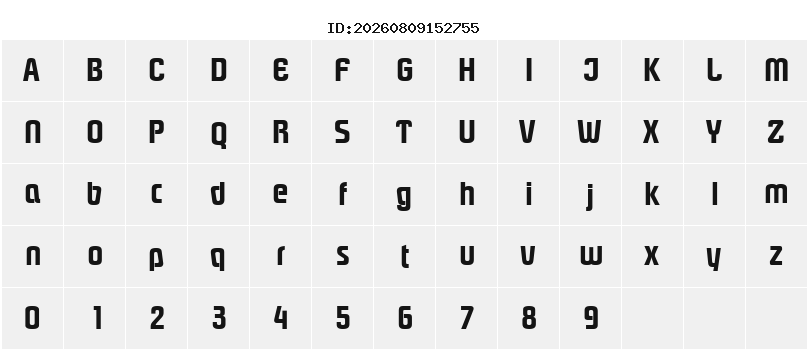
About Pasadena-Serial.ttf
Pasadena-Serial.ttf is a modern, elegant sans-serif font designed for ultimate readability and visual harmony. Perfect for branding, headlines, web design, and print materials.